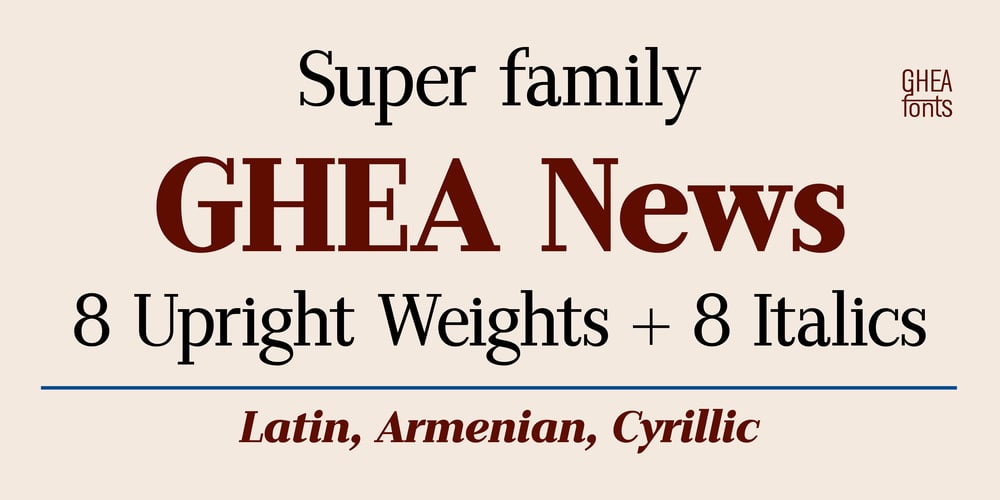
GHEA News
GHEA News font
GHEA News Font Family was designed by Edik Ghabuzyan and published by Edik Ghabuzyan. GHEA News contains 16 styles and family package options. GHEA News is a super family font. It has 8 upright weights and their Italics and supports Latin, Armenian and Cyrillic alphabet systems. The weights from Regular to Bold and their Italics can be used as text fonts. The weights thicker than Bold can be used as Display fonts. It is an easily readable two side serif font and the eyes don’t get tired while reading. GHEA News has a contrast style and at the same time is quite bright and clear.